Blooming Letters - a second look
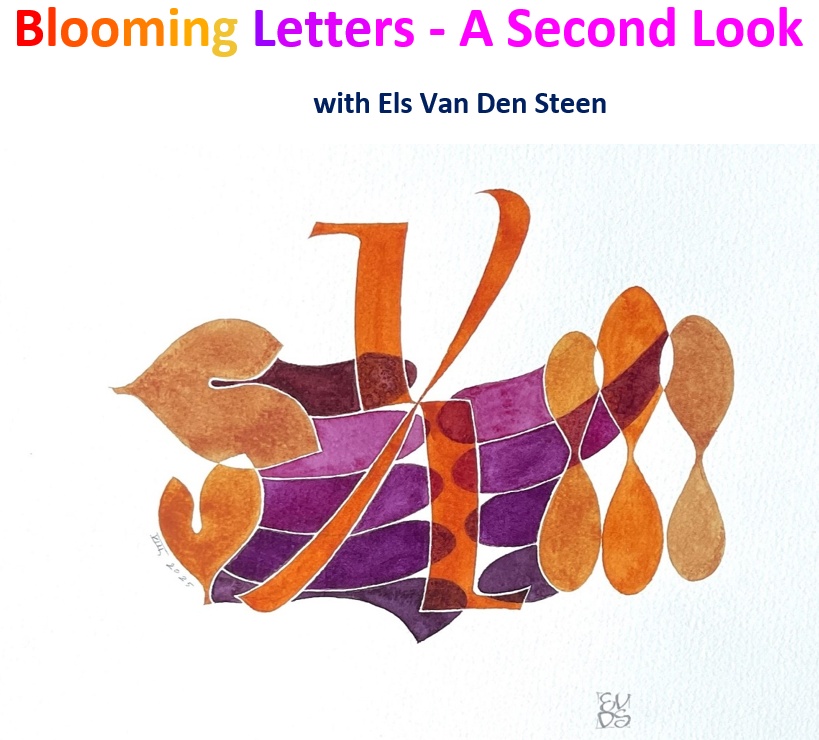
In this workshop we will create decorative letter designs that stand on their own. It is not necessary to have attended the first Blooming Letters workshop before attending this second one. Everyone is welcome as Els is revisiting the same topic but looking at it from a different angle. In the first workshop colourful initial letters were created for a greetings card, and in this new workshop we are thinking outside the box and creating letter designs that stand on their own.
You will begin the day by drawing your own letters in pencil, guided by Els as she shares her personal technique for discovering new and exciting letterforms. Once your chosen letter has taken form, you’ll enrich it with a decorative background, drawing inspiration from wildflowers or blooms from your own garden. You can draw in a realistic or abstract style, or somewhere delightfully in between, the choice is yours. Experiment with scale, placement, and pattern to craft compositions, reflecting your personal style. With your design in place, it’s time to add a splash of watercolour. You’ll use your floral inspiration to build a custom palette and you’ll learn how to shift its mood and energy.
This will lead to a finished artwork that’s uniquely yours - a celebration of letters, nature, and your own imagination.